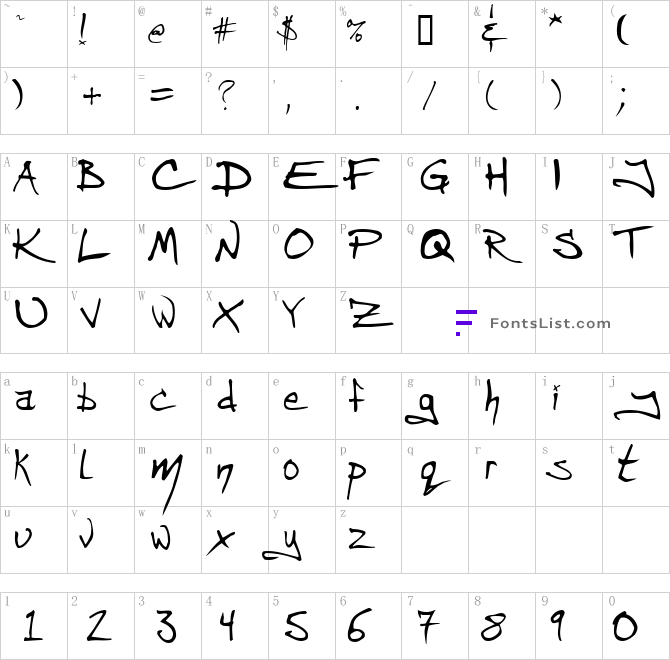
- Font Name:Angryblue Controlled
Angryblue-Controlled.ttf is a very beautiful artistic font, Angryblue-Controlled.ttf is widely used in the design and printing of various books and pictures,Angryblue-Controlled.ttf has a strong visual impact,Angryblue-Controlled.ttf is a commonly used font in newspapers, magazines and books, and is used in posters, e-commerce Poster design, store design, logo design, font design and other fields.Angryblue-Controlled.